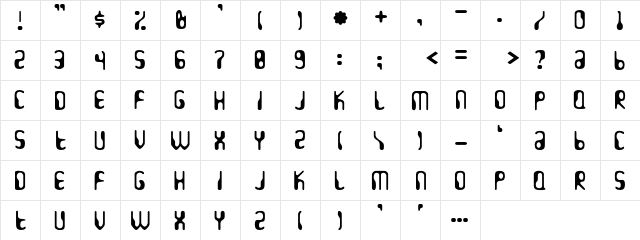
Hydrogen Regular
Design Context for Hydrogen Typeface
Hydrogen takes a measured approach to typography — its balanced proportions and neutral character make it a reliable workhorse for both digital and print work.